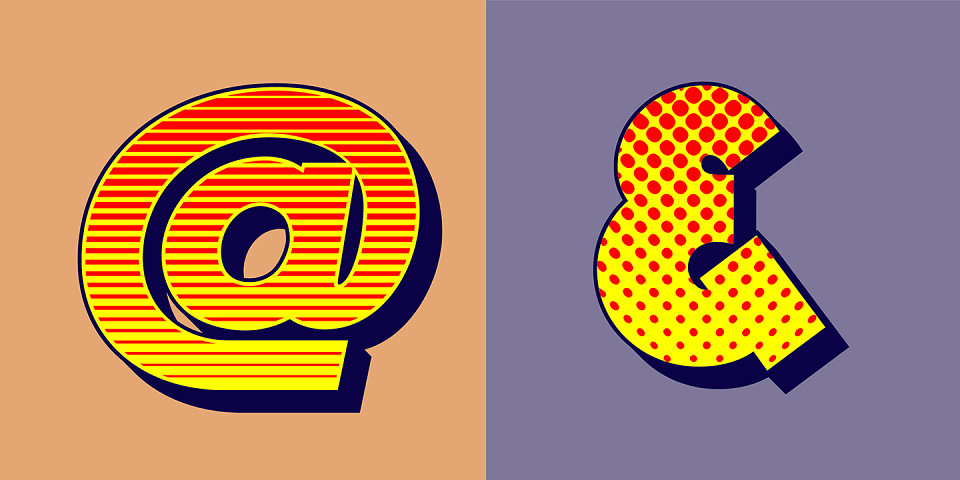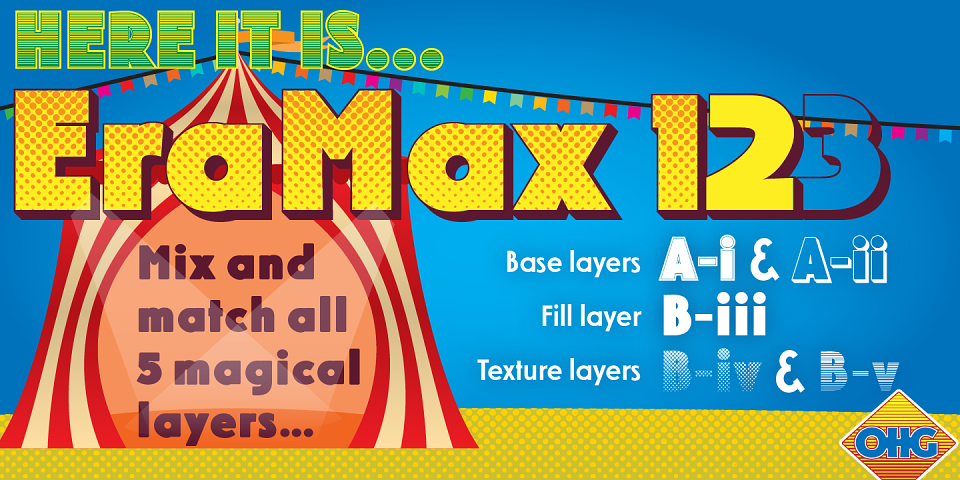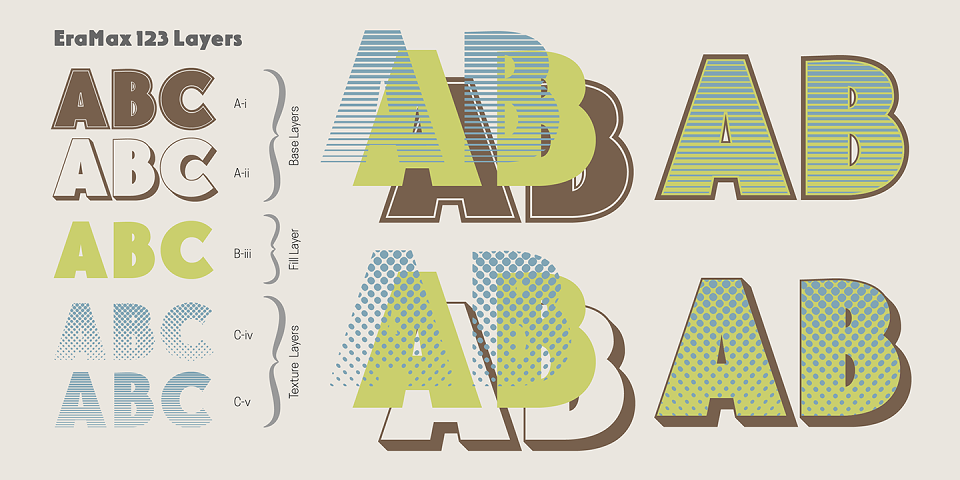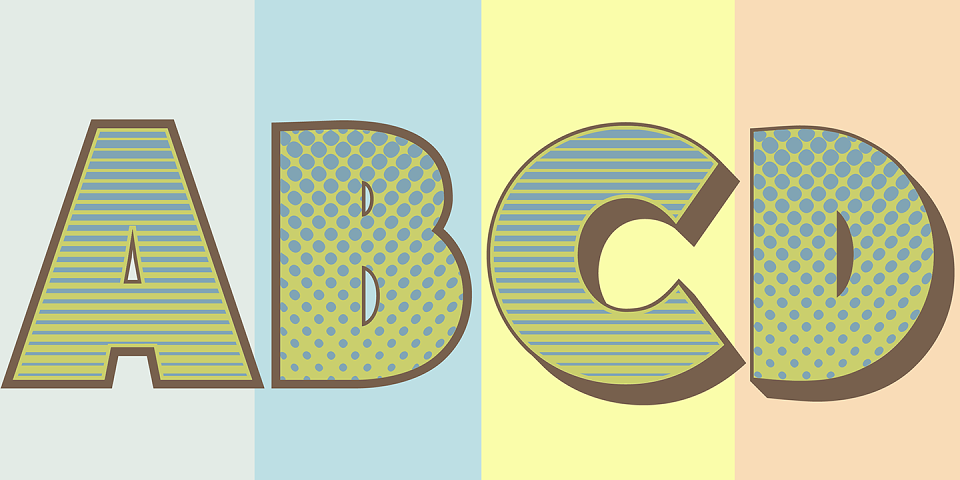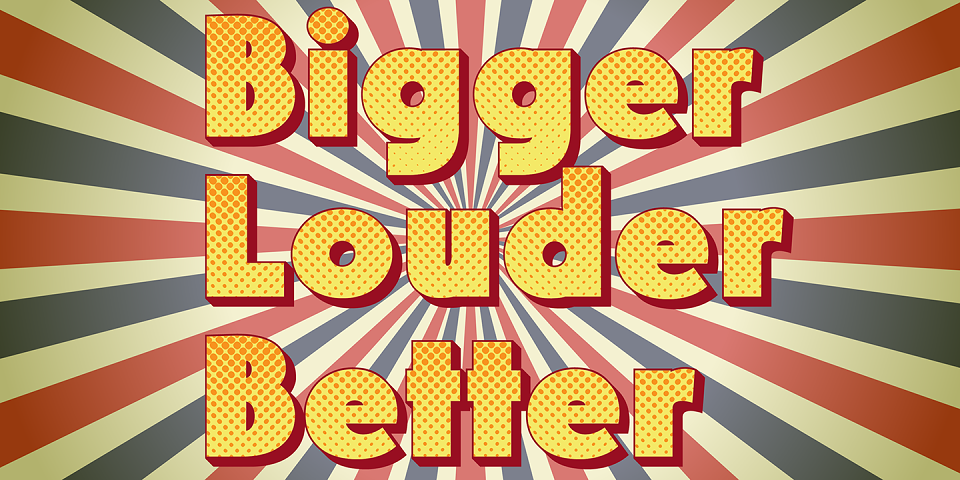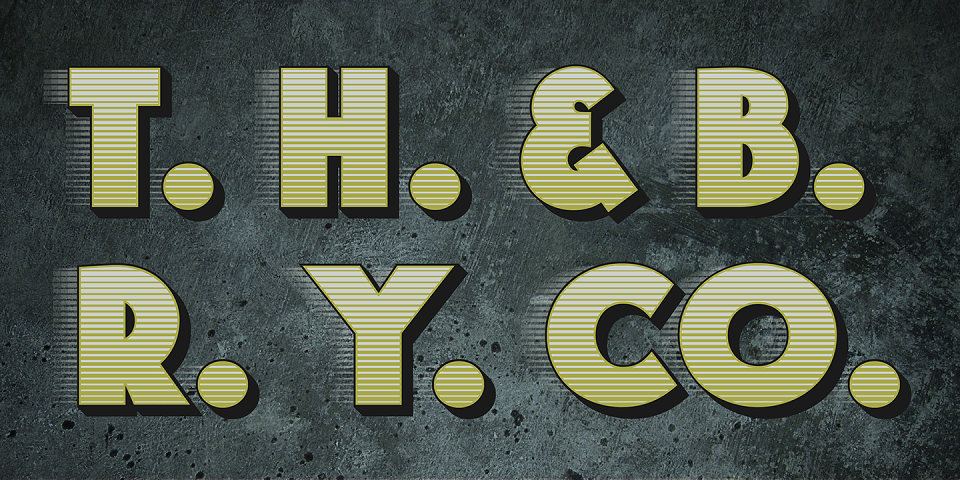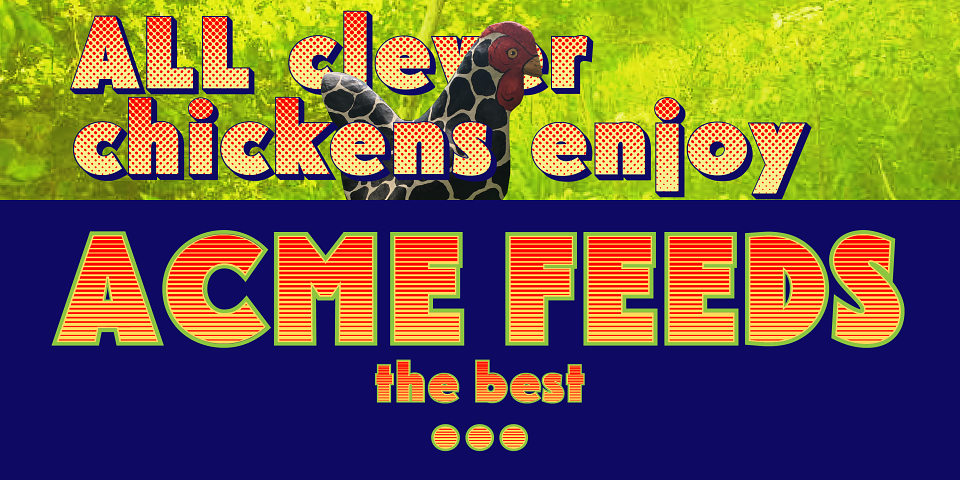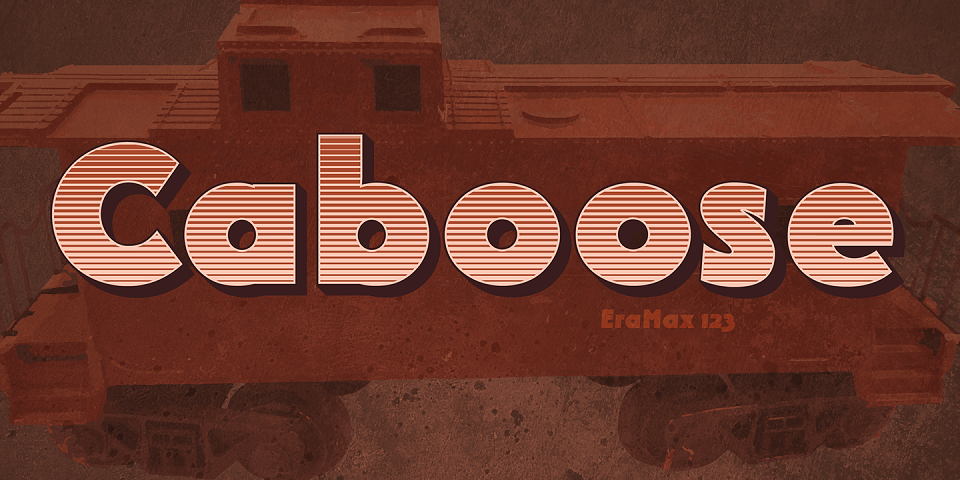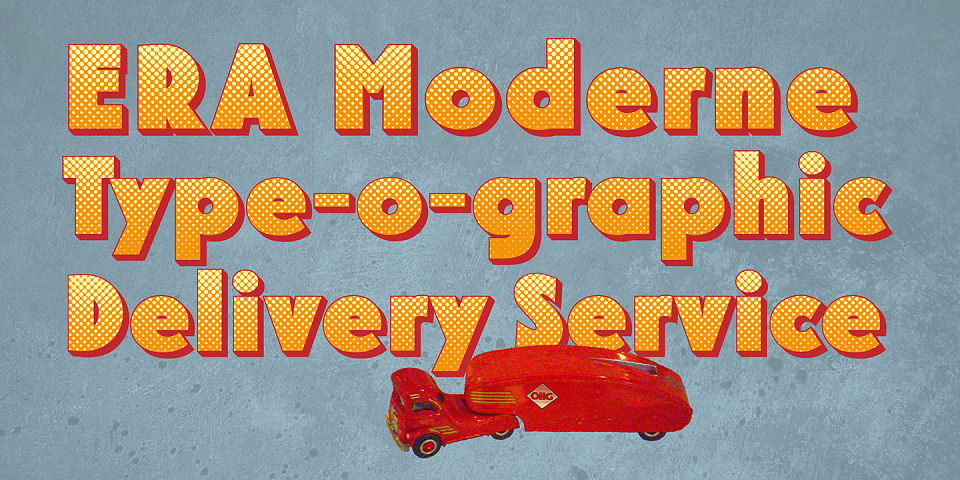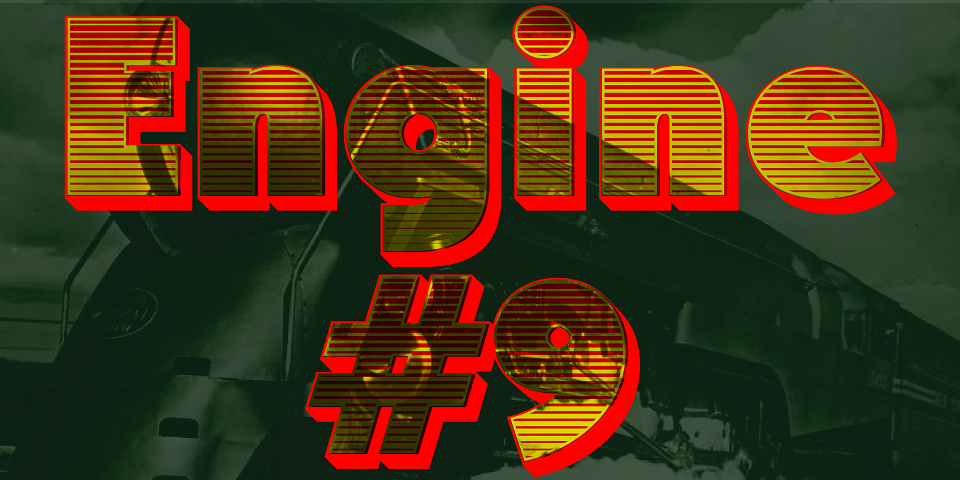
EraMax 123 is a display typeface of 5 "stackable" fonts with options to choose between 2 base layers, 1 fill layer and 2 top, or texture layers to produce dramatic and fun effects.
This typeface is meant to be set large for best results. It's a great face for packaging, posters, or branding, where a strong, colourful voice is needed.
The "Max" in EraMax is there because the dot and stripe patterns are a tip hat to Peter Max, the great designer and artist known, or at least as remembered by me, for his posters from the 1960's.
EraMax 123, Multi-Layered Display Typeface from Our House Graphics Inc.